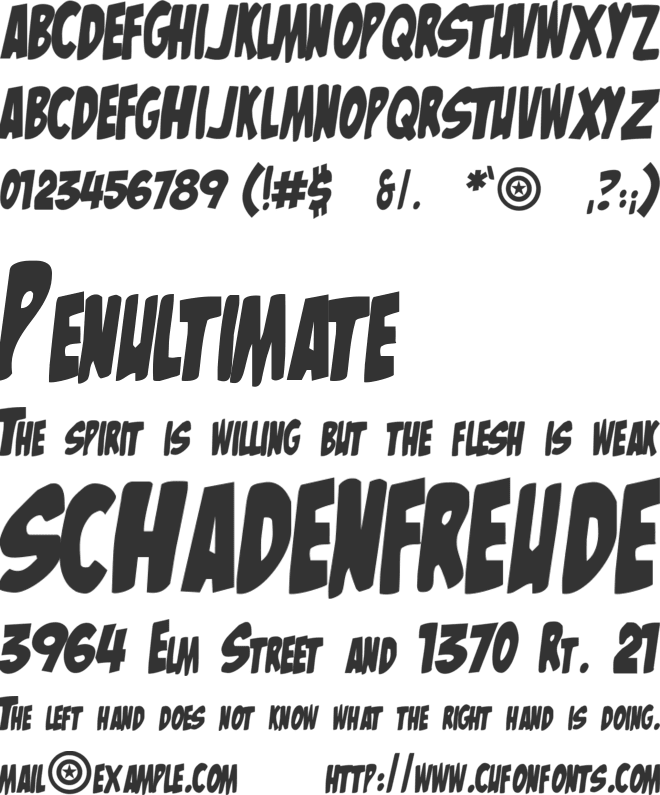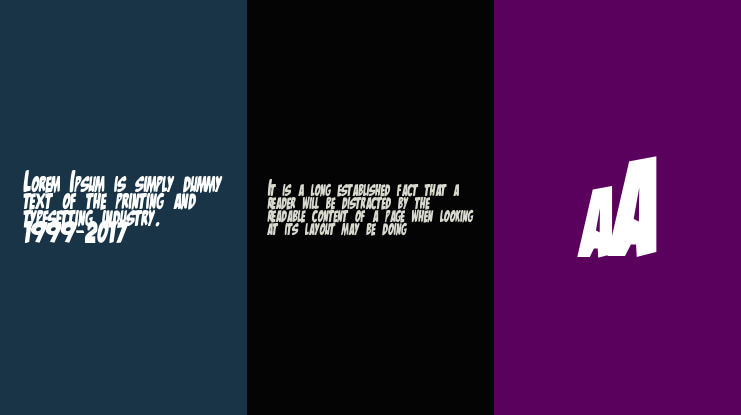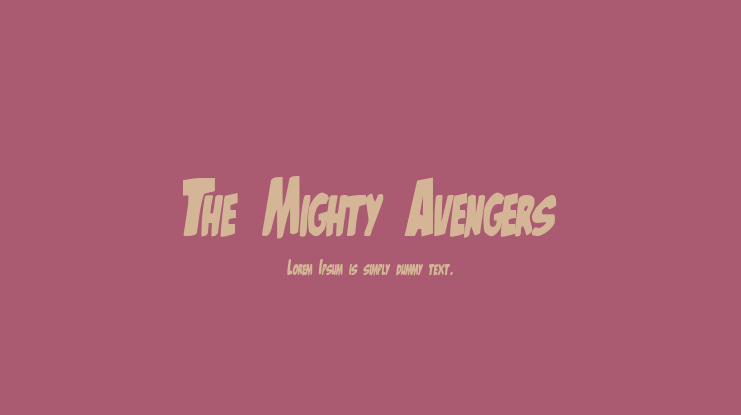
The Mighty Avengers Font
Latest fan-based font created to look like the title sequence from the latest Avengers Earths Mightiest Heroes TV series on Disney XD I created this for my 5 year old son who loves Super-Heroes.